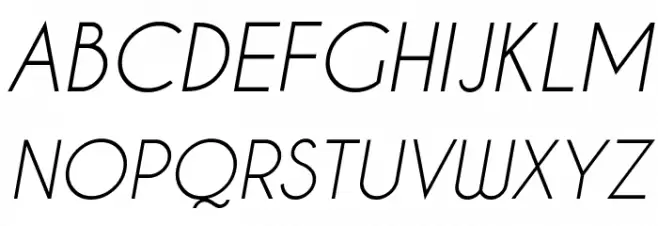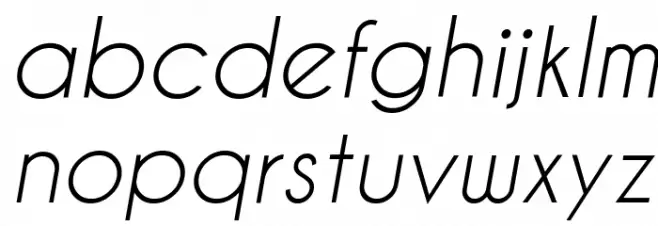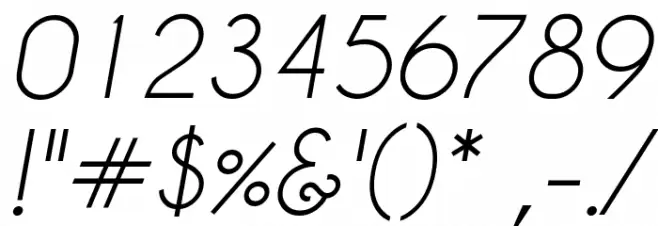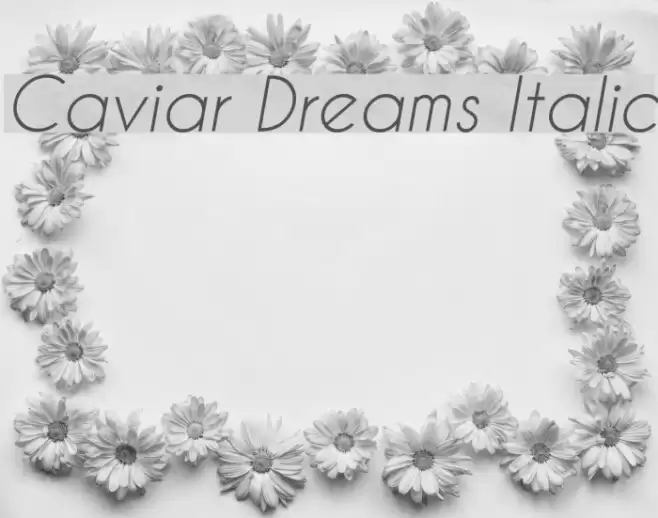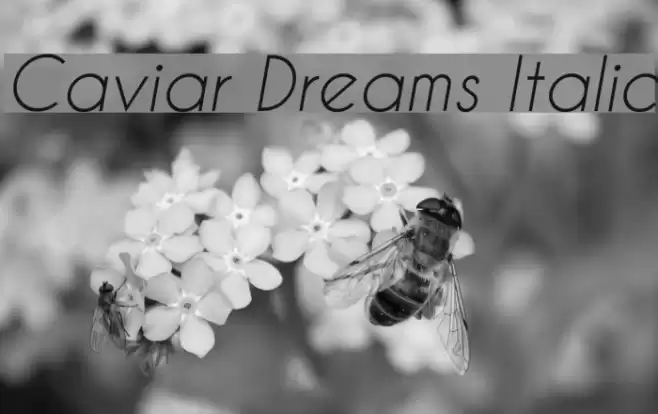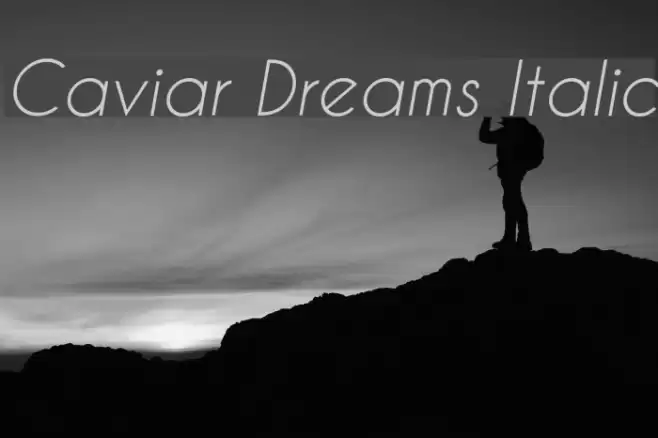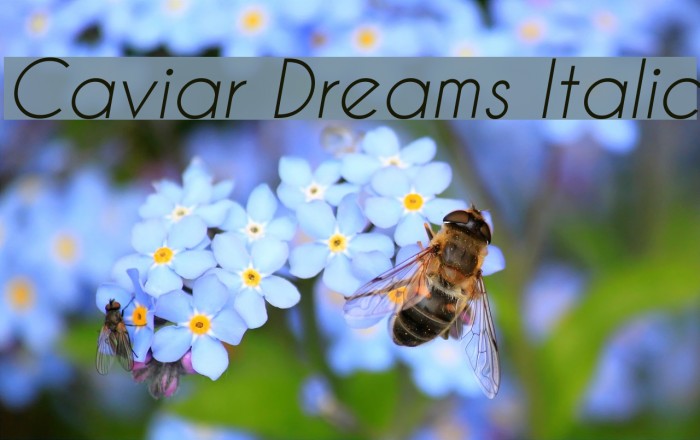
Caviar Dreams Italic
This font features a sleek and modern design with a subtle italic slant, giving it a sophisticated and elegant appearance. The characters are clean and streamlined, with a consistent stroke width that conveys a sense of balance and harmony. The uppercase letters are tall and slightly narrow, while the lowercase letters maintain a smooth and flowing form. The numerals are clear and legible, matching the overall aesthetic of the font. Special characters are well-integrated, maintaining the font's cohesive look. This font is versatile, suitable for both digital and print media, and can enhance the visual appeal of any project.
A sleek, modern italic font with clean lines and balanced proportions.